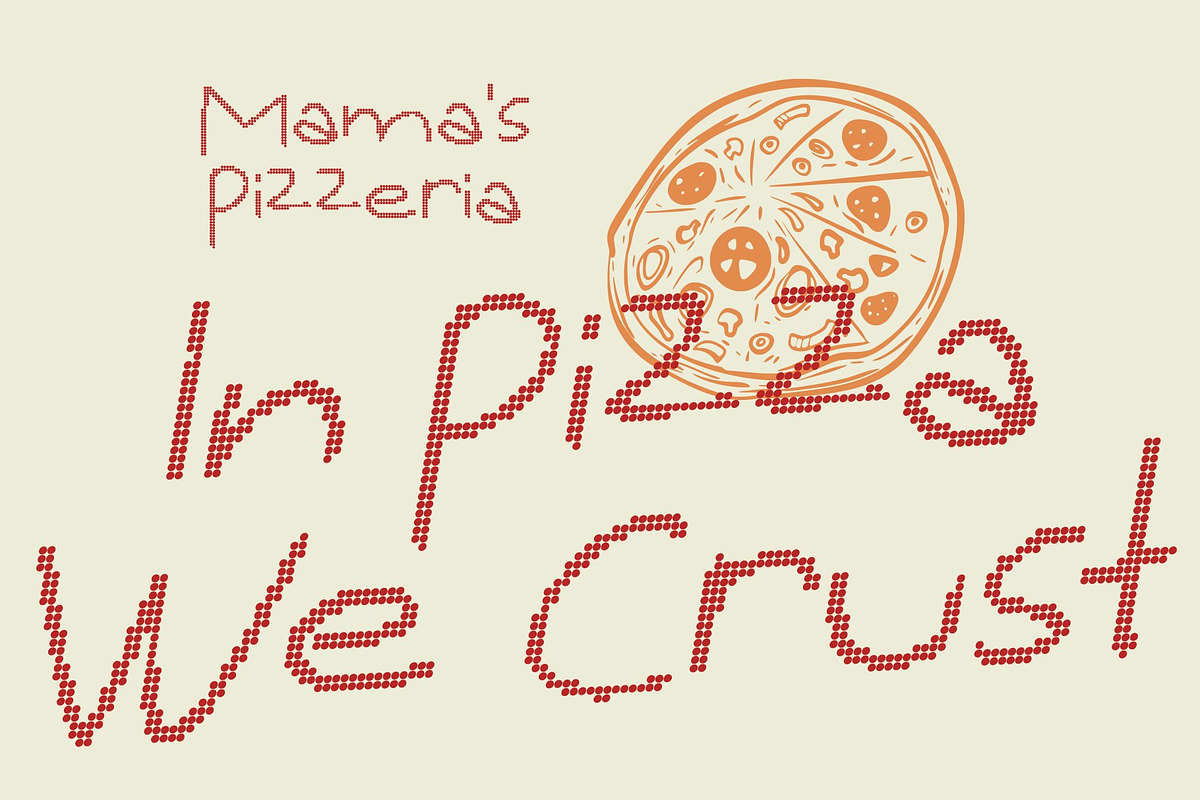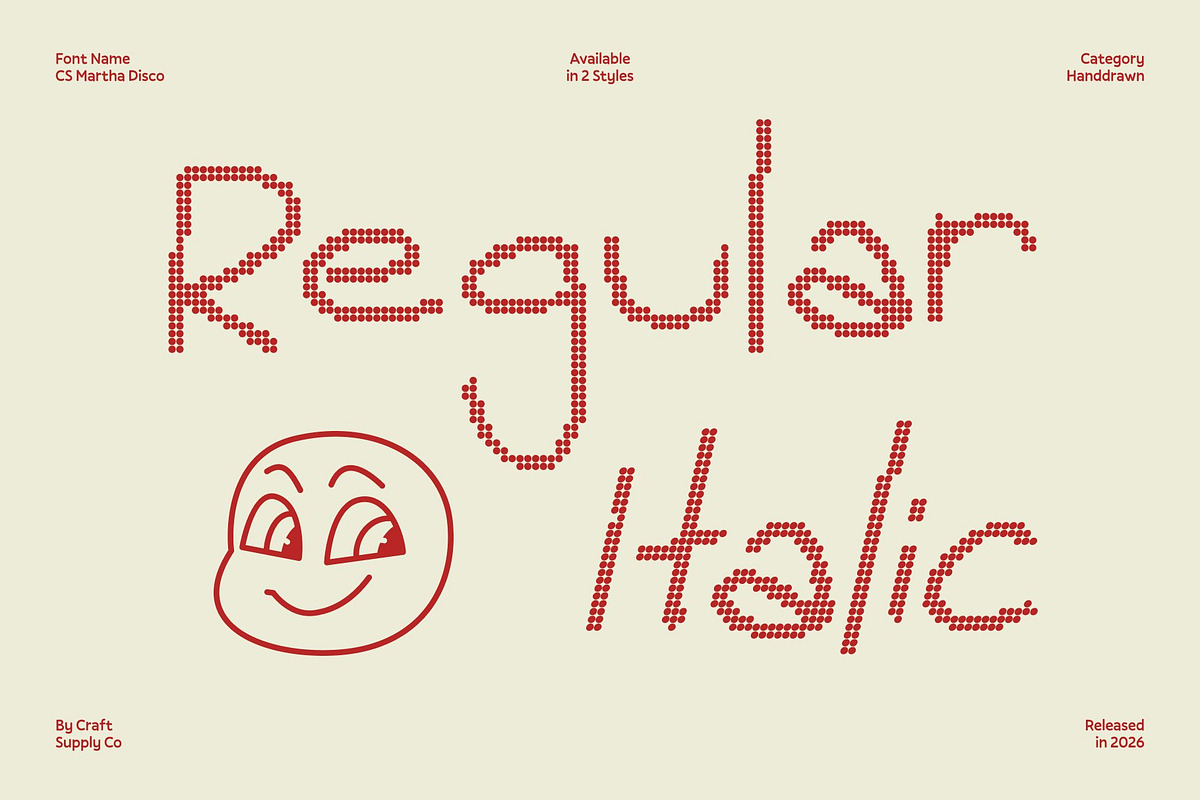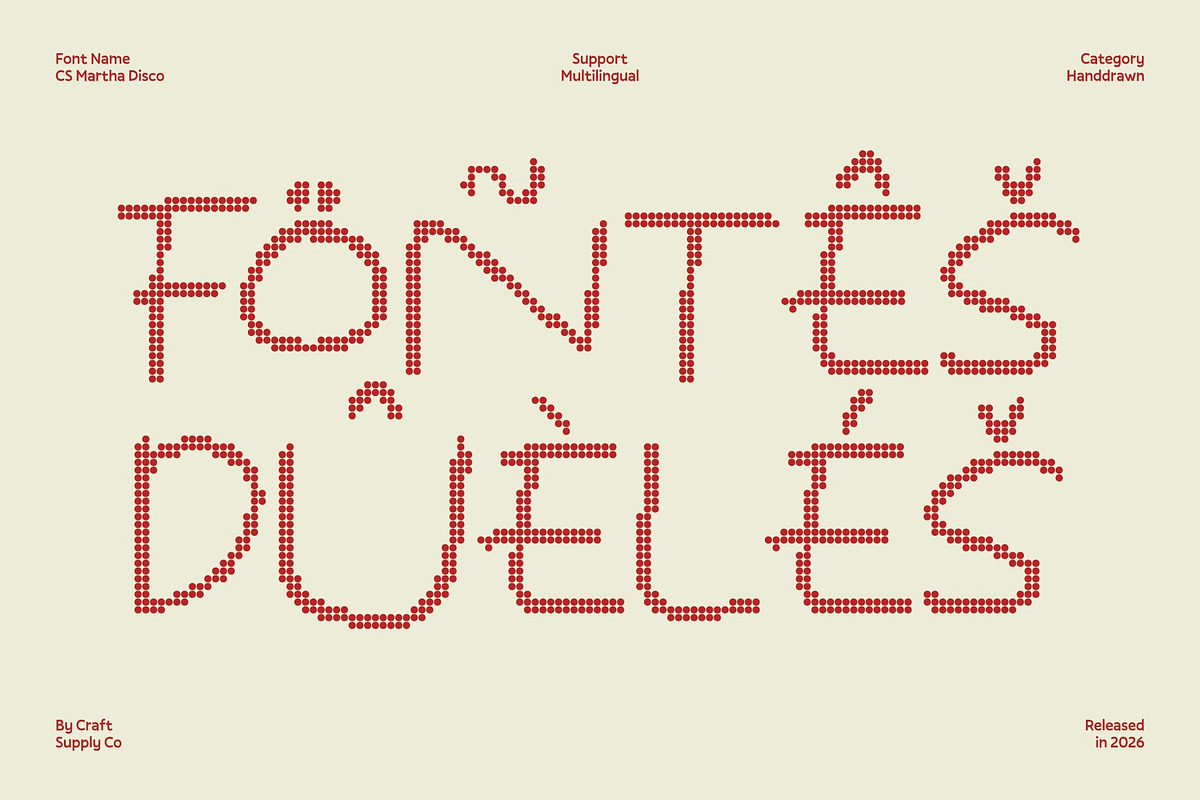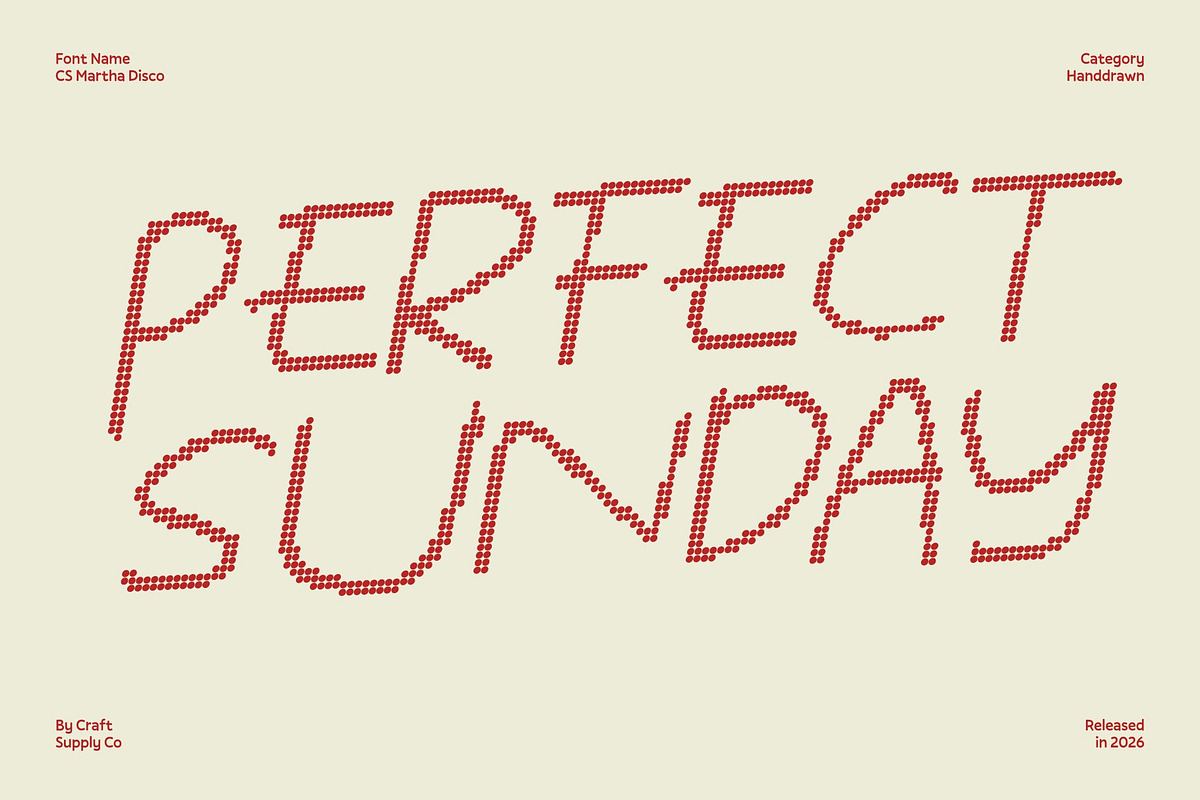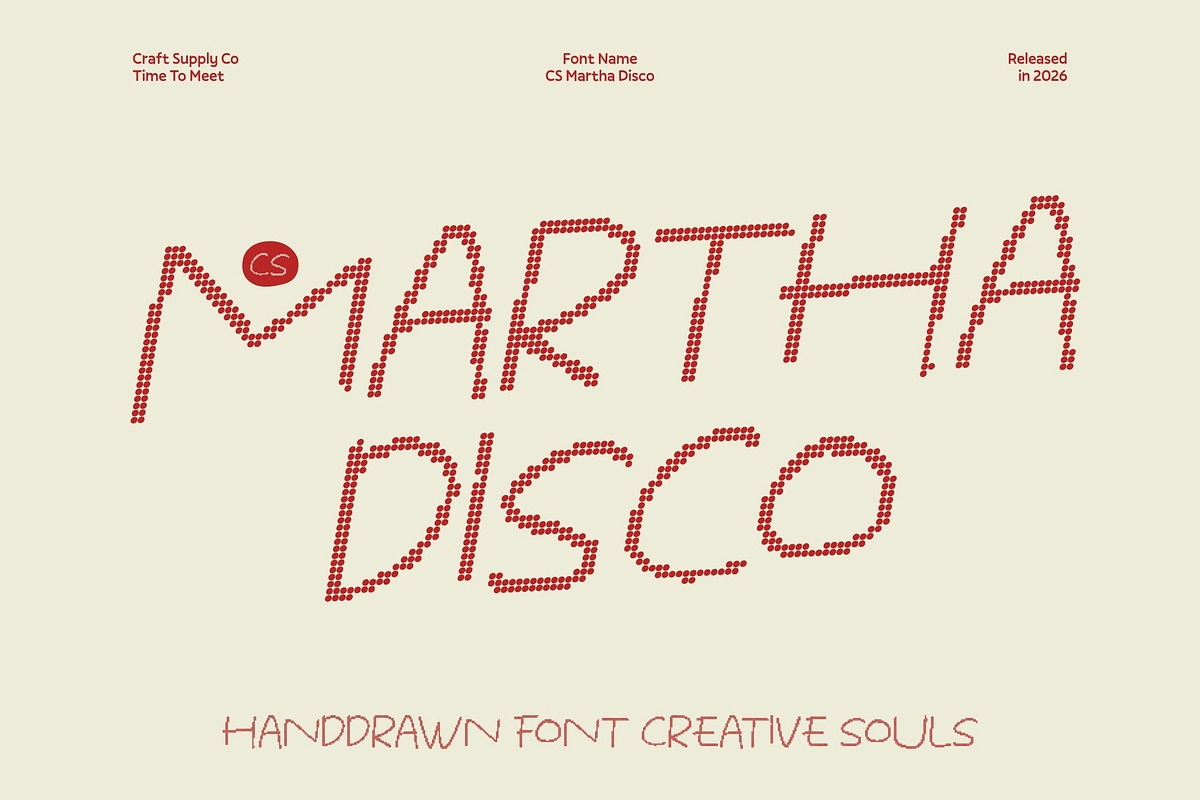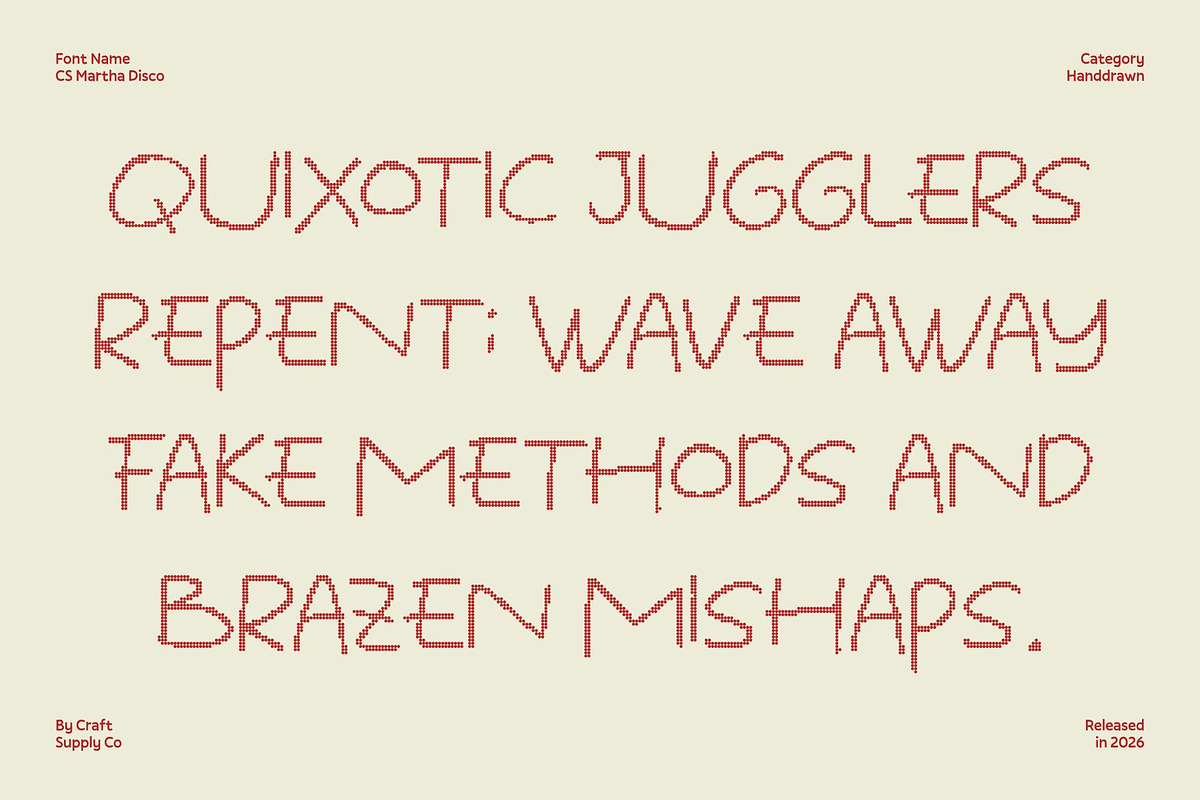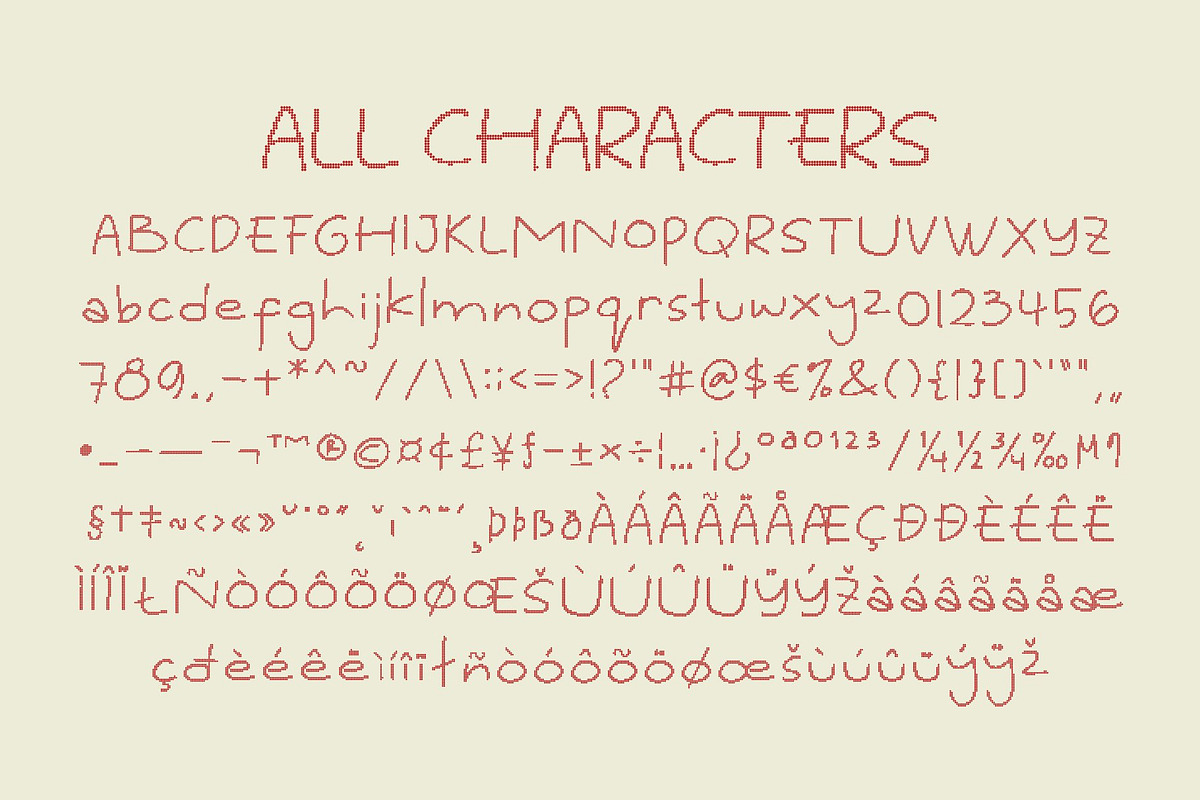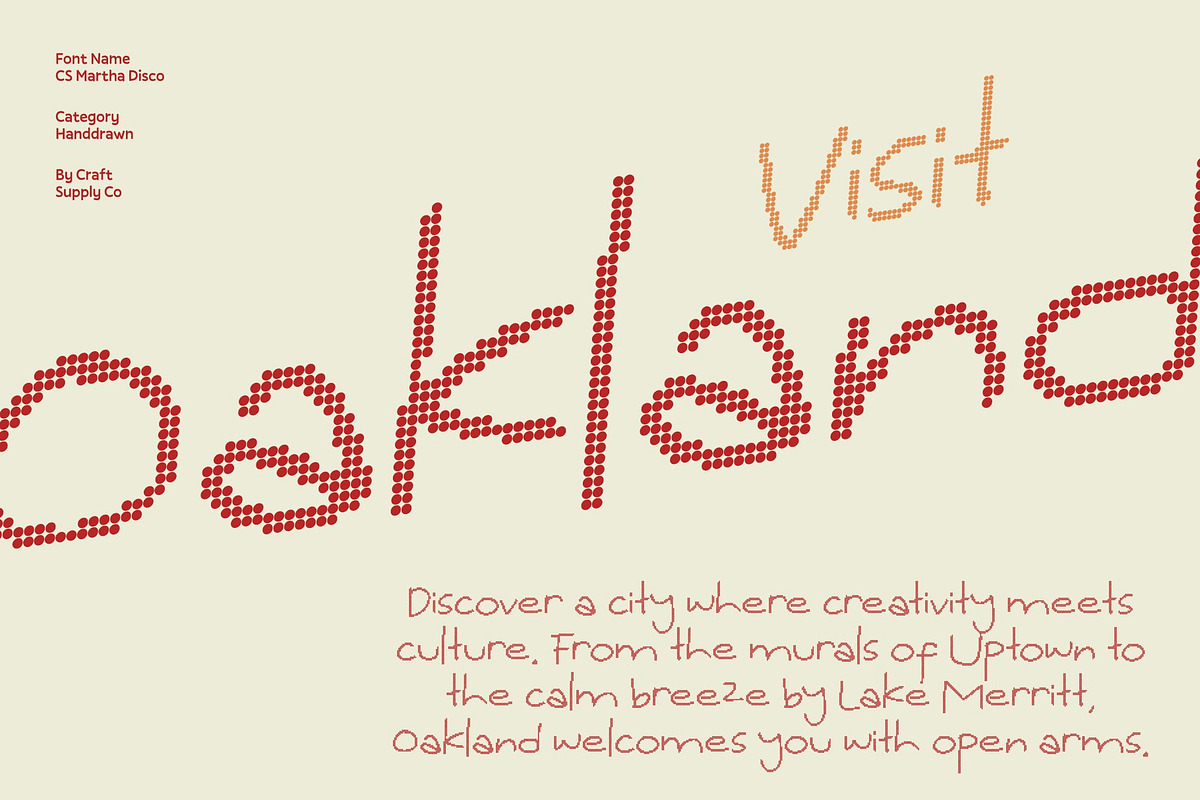
CS Martha Disco
CS Martha Disco – Handwritten Joy with Sparkling Party Vibes
Expressive Handwritten Style with Disco Glow This is a fun handwritten font that captures the lively charm of natural pen strokes now infused with radiant disco energy. Every letter flows with spontaneity and personality, enhanced by a subtle rhythmic bounce that feels like it’s moving to music. The result is warm, authentic handwriting illuminated with celebratory sparkle.
Lively Strokes That Dance Across the Page Its dynamic curves and casual rhythm transform simple text into a vibrant visual experience. The handcrafted texture preserves the beauty of natural imperfections, while the disco-inspired flair adds excitement and glow. Each word feels animated, cheerful, and full of life perfect for designs that want to stand out with joyful expression.
Perfect for Creative and Party-Ready Projects From quote graphics and book covers to event posters and social media content, brings playful charm with a festive twist. It shines in personal branding that feels genuine and approachable, and it’s especially striking in cheerful invitations, lifestyle visuals, and music-themed designs.
Versatile, Friendly, and Full of Energy Designed for both digital and print use, this font pairs beautifully with bright color palettes, glitter textures, and bold compositions. It balances readability with expressive character, making it ideal for layouts that need warmth, personality, and a touch of dance-floor glamour.
CS Martha Disco Regular
CS Martha Disco Italic